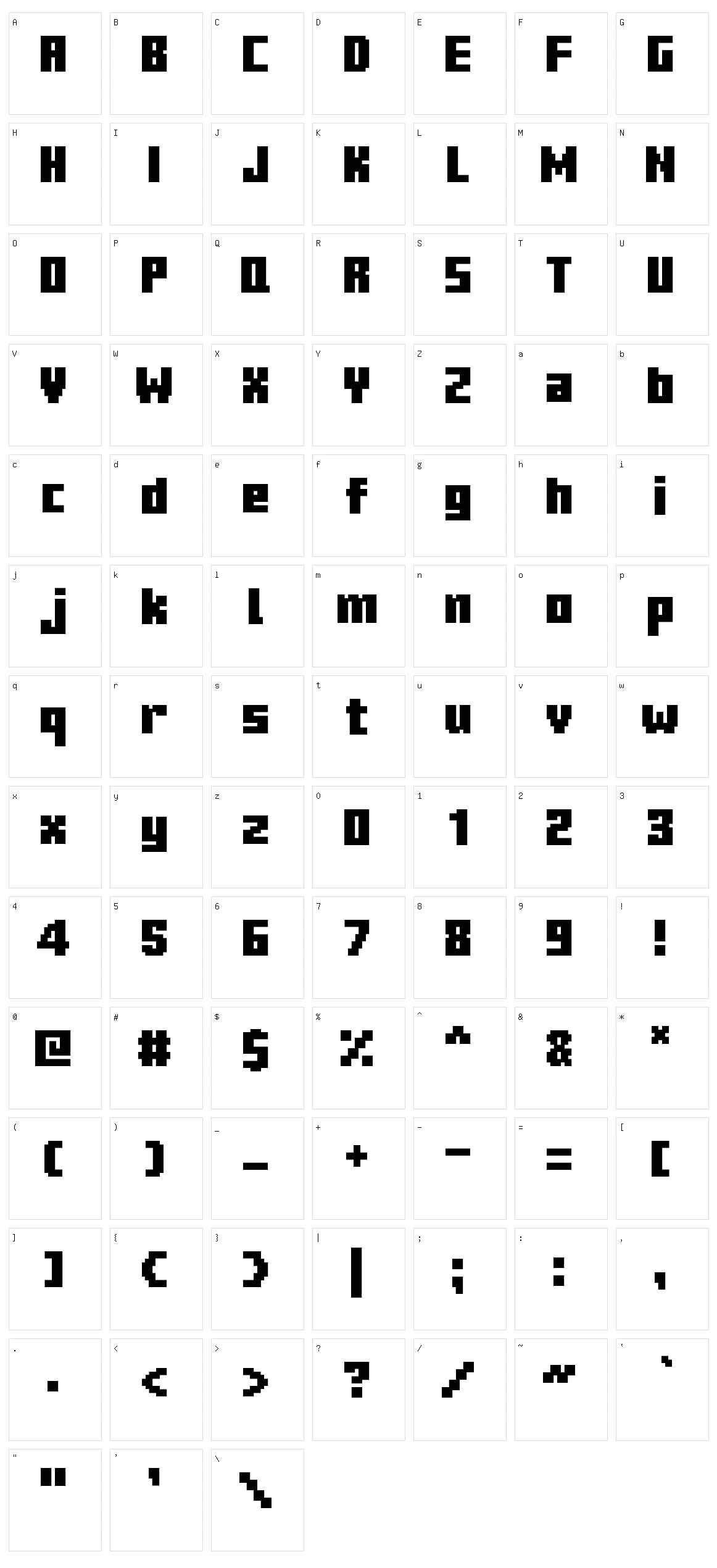
The free font MC Ten Lowercase Alt is carefully designed by Patred Lomsons, showcasing a thoughtful balance of creativity and usability and falls under the Square font style. When you download the ZIP file, it contains only 10.57 KB of font files, making it lightweight and quick to download. Please review the license details below to understand permitted usage and distribution rights. If license information is not available, we recommend using this font for personal projects only or contacting the author directly for commercial usage permissions.